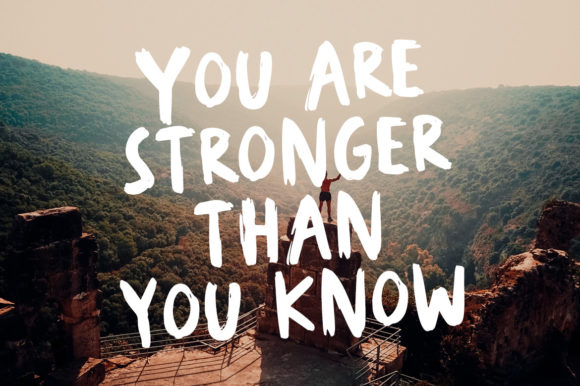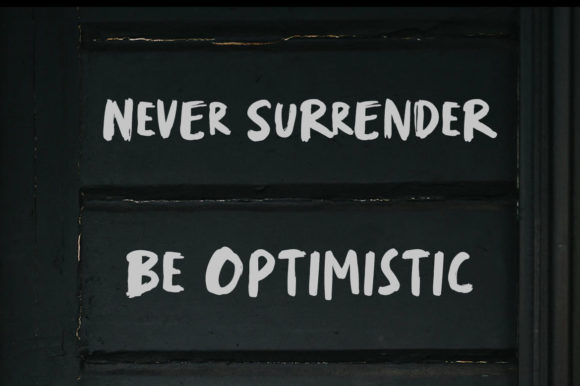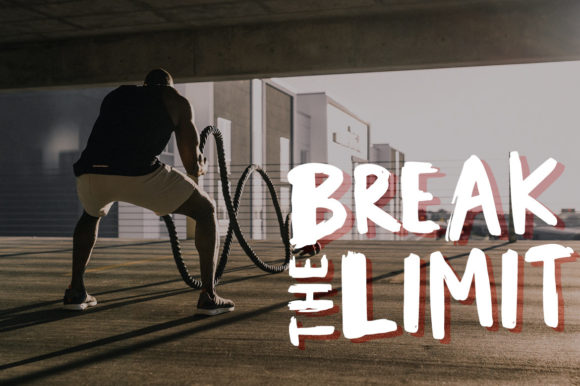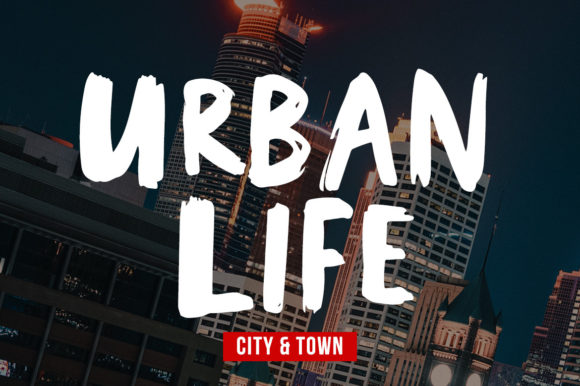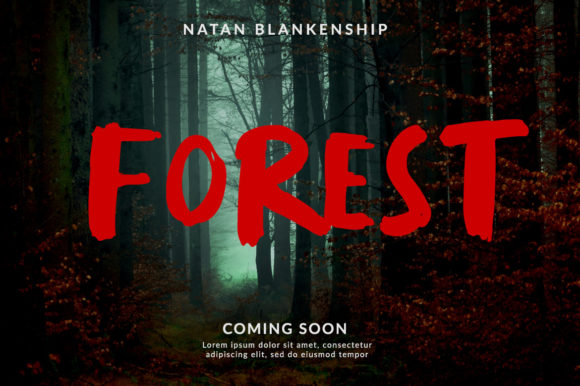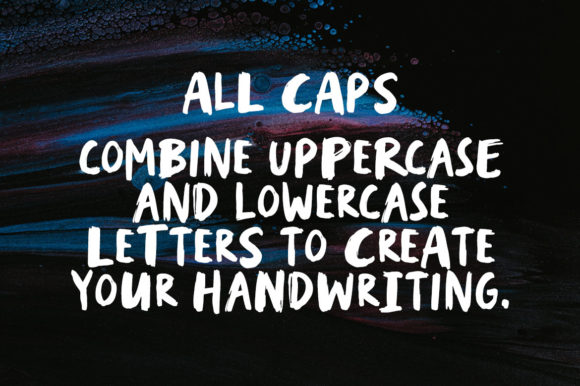
Introduction to Hendry Font
Have you ever found yourself staring at a blank canvas, desperate for the perfect design element to bring your creative project to life? We’ve all been there. But what if I told you that there’s a secret design resource waiting to elevate your next masterpiece? Enter Hendry Font, a stunning display font that’s sure to leave a lasting impression.
With its sleek, brushed aesthetic and versatility, Hendry Font is the ultimate design companion. Whether you’re working on a high-end branding project or a simple graphic design, this font is sure to add a touch of sophistication and style. And the best part? You can download it for free, making it an invaluable resource for designers of all levels.
Let’s dive into the world of Hendry Font and discover why it’s a must-have for any creative project.
Key Features of Hendry Font
- High-quality font design with a transparent background, making it ideal for creative projects and designs.
- Includes a comprehensive set of characters, including uppercase and lowercase letters, numbers, and punctuation marks.
- Features a clean and modern design, with a resolution of 300 DPI, making it suitable for print and digital applications.
- Perfect for use in logos, branding, and other creative projects where a unique and eye-catching font is required.
Honest Review: Hendry Font
As a designer, I’ve had the chance to work with a wide range of fonts, but Hendry Font caught my eye for its unique style and versatility. I downloaded it for free from a reputable design resource and was immediately impressed by its high quality.
What works well for Hendry Font is its clean and modern aesthetic, making it perfect for creative projects that require a touch of sophistication. The font’s transparent background allows for seamless integration with images and other design elements, making it a great choice for designers who value simplicity and elegance.
Here are some of the key features that I like about Hendry Font:
- Transparent background for easy integration with other design elements
- ⚠️ Limited character set, which may not be suitable for lengthy text
- ⚠️ May not be as readable in smaller font sizes
Overall, I’m impressed with Hendry Font’s design and functionality. While it may have some limitations, it’s a great addition to any designer’s toolkit, especially for creative projects that require a touch of modernity and elegance.
Hendry Font
Tips for Getting the Most Out of Hendry Font
Here are a few tips to help you get the most out of the Hendry Font:
- Use it on a transparent background to add a touch of elegance to your designs.
- Combine it with other design elements to create a unique and eye-catching look.
- Experiment with different font sizes and styles to find the perfect fit for your project.
The Hendry Font is perfect for a variety of use cases, including:
- Corporate branding and marketing materials.
- Social media graphics and advertising.
- Presentations and documents.
- Web design and development.
Alternatives to Hendry Font
Montserrat is a modern sans-serif font perfect for creative projects that require a clean and elegant design. It’s ideal for use in logos, headings, and titles, especially when you need a high-quality font with a transparent background. Montserrat is available for free download and can be used in a variety of design resources, including logos, business cards, and websites.
Compared to Hendry Font, Montserrat has a more geometric and minimalist design, making it a great alternative for designers who want a clean and modern look. Montserrat is also highly legible and versatile, making it suitable for use in a wide range of creative projects.